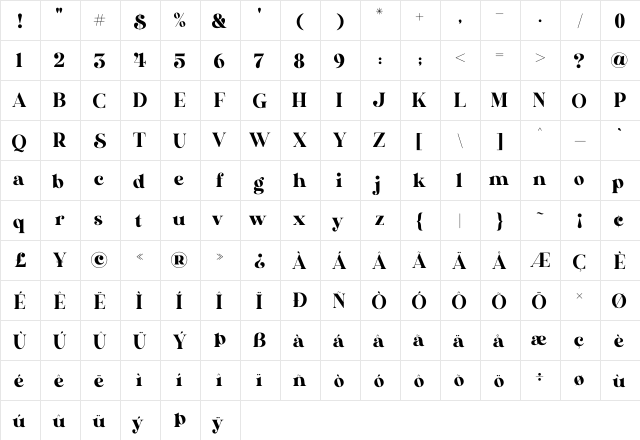
Nevrada Neue
Design Context for Nevrada Neue Typeface
Nevrada Neue offers clean, dependable letterforms without strong stylistic allegiance, making it a practical choice for designers who need flexibility.